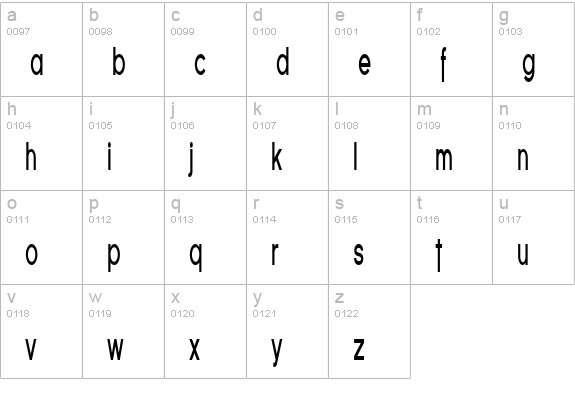
Florencesans Comp Bold is a strong, high-contrast variant in the Florencesans typeface family \xE2\x80\x94 well suited to headlines, attention-grabbing titles, and strong calls-to-action.
Florencesans Comp Bold is a striking and modern typeface that commands attention with its bold and confident design. This font is perfect for making a bold statement in your designs, whether it be for headlines, logos, or posters. The strong and clean lines of Florencesans Comp Bold exude a sense of professionalism and sophistication, making it a versatile choice for both print and digital projects. What sets Florencesans Comp Bold apart is not only its bold and eye-catching appearance, but also the fact that it is available for free download at FontsMarket.com. This means that you can easily access this high-quality font without having to worry about any extra costs. With its sleek and stylish look, Florencesans Comp Bold is sure to elevate your designs and help you stand out from the crowd. Download it today and add a touch of modern elegance to your projects.